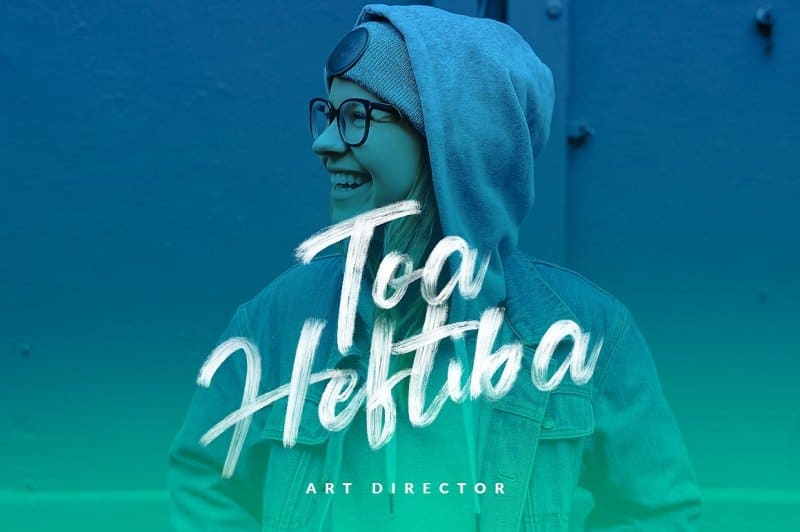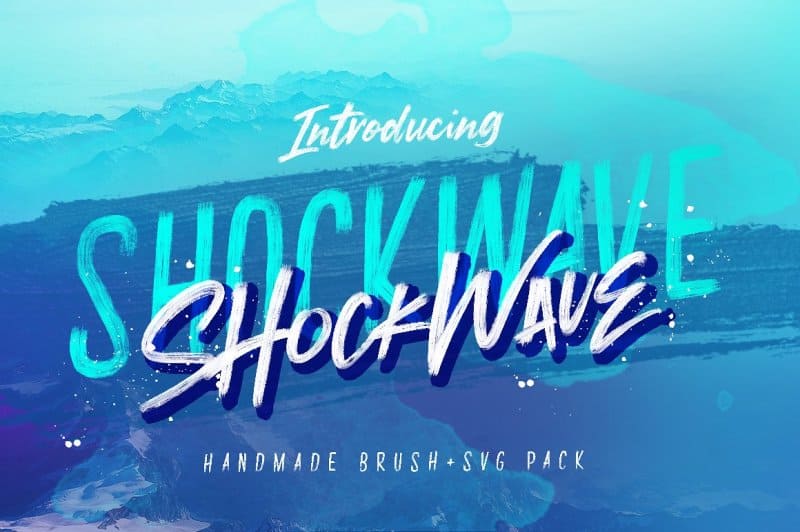
Shockwave Collection Font
Shockwave Collection Font falls into the category of a script typeface. This typeface is quite similar to the fierce font and available for free download. Any headings made with Arizona appear polished and fashionable with many characters have stylistic options-like swashes, Frutiger font certain varieties of publications, which includes musical scores, scientific notation. Whitney font is a high top notch horror font and is available without value download and private use.